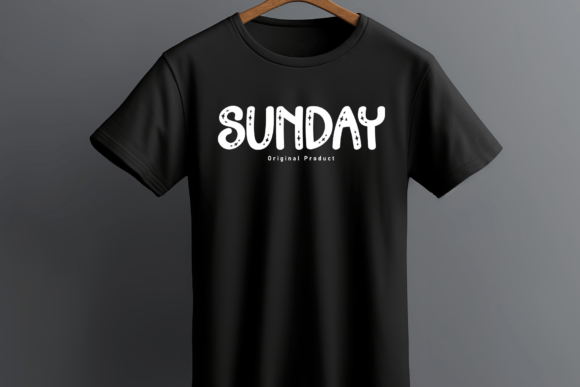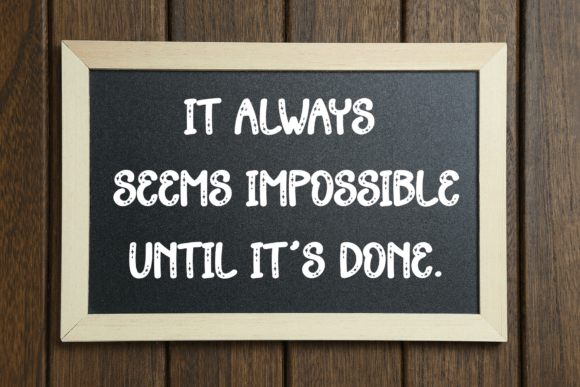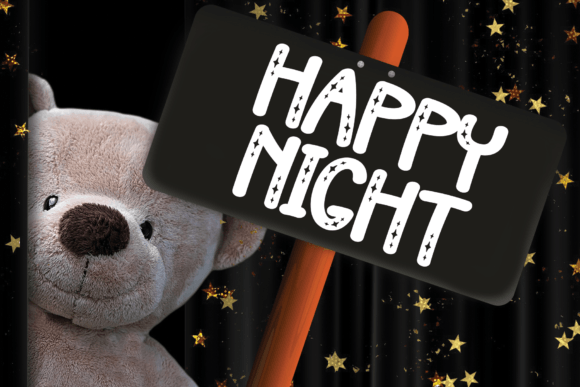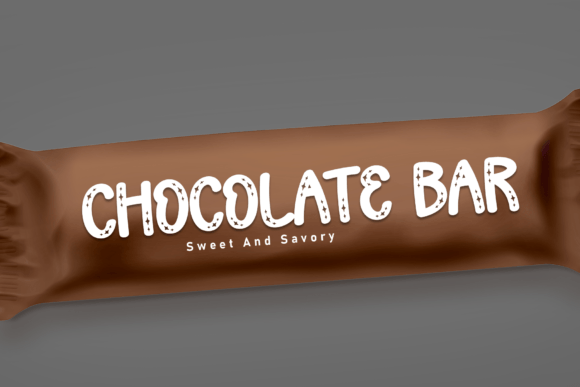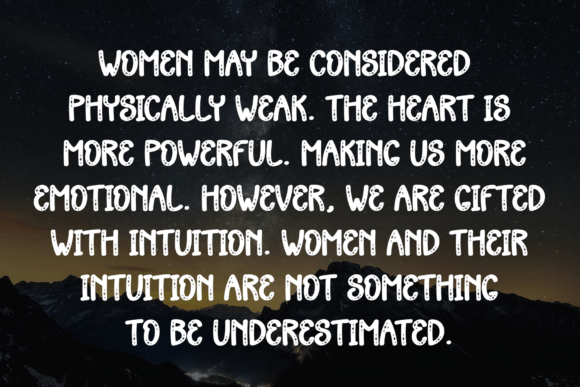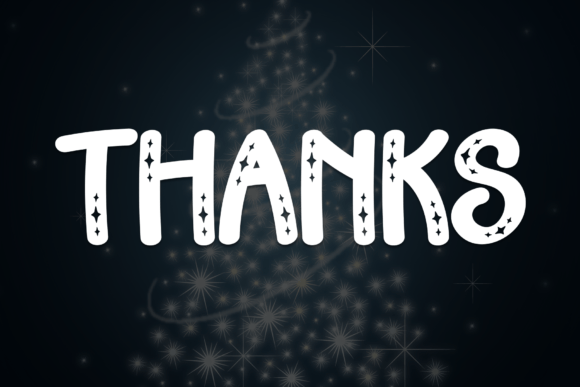
Introduction to Christmas Starlight Font
Christmas Starlight is a unique and interesting display font.
A little bit quirky, this font looks incredibly adept on a wide variety of contexts .
Key Features of Christmas Starlight Font
Why Choose Christmas Starlight Font?
Christmas Starlight Font offers exceptional quality and versatility, making it a valuable addition to your design toolkit. Whether you’re creating for personal projects or commercial use, Christmas Starlight Font delivers professional results.